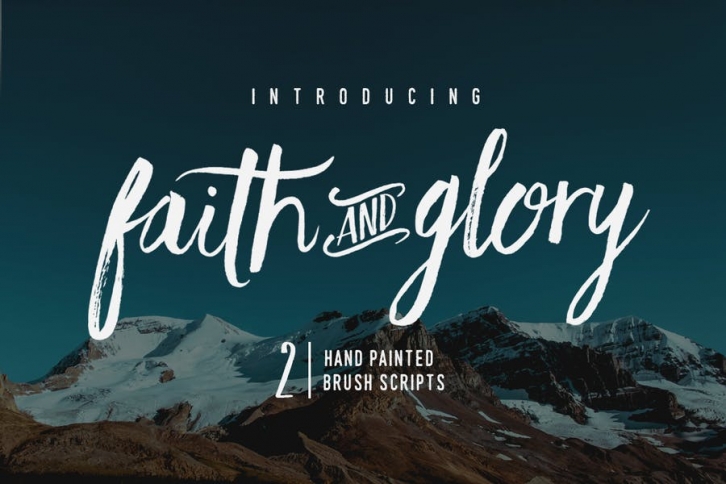
Thanks for checking out Faith and Glory! These 2 hand-painted brush fonts are designed to perfectly combine with one another and allow you to create beautiful typography with a personal touch.
Ideal for; Logos, printed quotes, invitations, image overlays, greeting cards, product packaging, text headers, & whatever else your imagination holds!
Faith and Glory One Is a script font which includes upper & lowercase characters, punctuation, numerals, and multilingual support. Alternates are available for several lower case characters, these are accessible by turning on 'Stylistic Alternates' in Photoshop, or via any software with a Glyphs panel (Illustrator, Photoshop CC, Inkscape). For those who are unable to access the alternates via this method, an 'Alt' font is included in your download. Just install it, select 'Faith And Glory One Alt' from your software and type away to input the alternates!
Faith and Glory Two Is a condensed brushed font containing uppercase only characters, punctuation, numerals, and multilingual support are also included. Alternates are available for key characters, you can access these simply by switching between upper & lower case glyphs within the 2 fonts (e.g. typing 'A' and 'a' will give you 2 alternate characters).